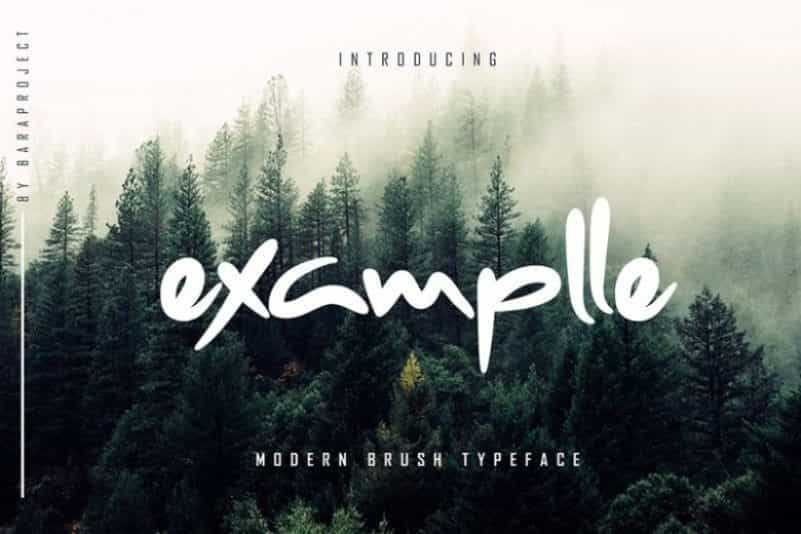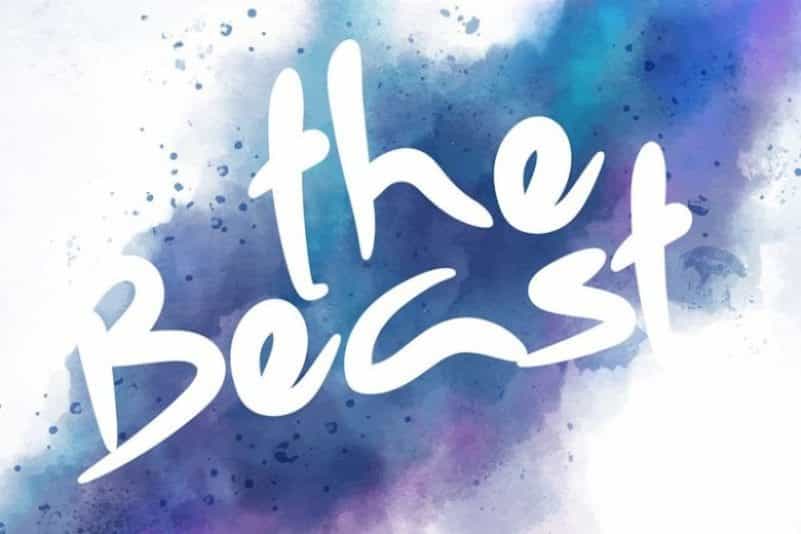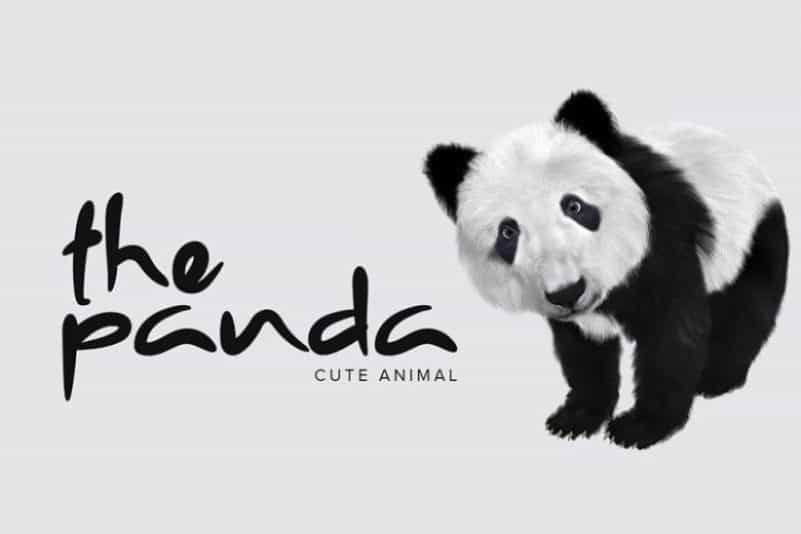
Discover Examplle Font, part of the Brush Display collection—a versatile and unique font perfect for adding a personal touch to your projects. Download it for free and enjoy crafting designs with style, from invitations to social media posts. This font is available exclusively for personal use, giving you the freedom to create without limits. Unlock your creativity with Examplle Font today!